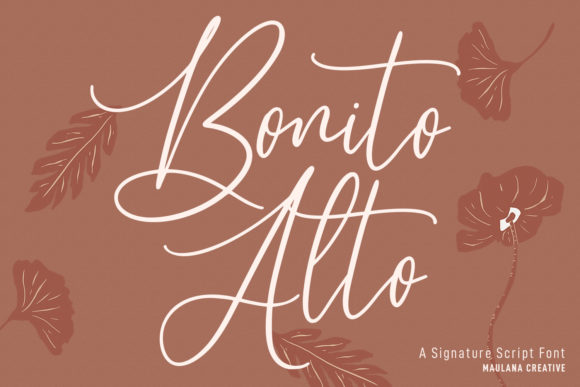
Introducing Alto Bonito, the script font that'll transform your digital presence into a captivating masterpiece.
Indulge in the whimsical charm of Alto Bonito, a script font crafted with meticulous attention to detail. Its playful characters dance across the page, evoking a sense of joy and creativity.
With its medium contrast strokes, Alto Bonito exudes a delicate balance between elegance and informality. Each letter is adorned with charming curves and flourishes, capturing the essence of handwritten beauty.
Unlock a world of possibilities with Alto Bonito's extensive character set, featuring ligatures and alternates that add a touch of uniqueness to your designs. Its versatility knows no bounds, accommodating a wide range of projects from personal branding to heartfelt messages.
Elevate your digital correspondence with Alto Bonito's mesmerizing script. Whether you're crafting an unforgettable signature email or adding a touch of flair to your social media posts, this font will leave a lasting impression.
Join the league of creative visionaries who have embraced Alto Bonito's captivating allure. Let your words dance with personality and charm, leaving a trail of inspiration in their wake.